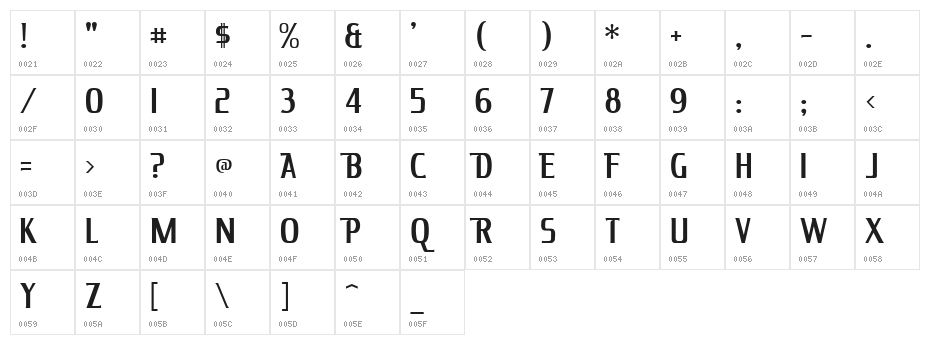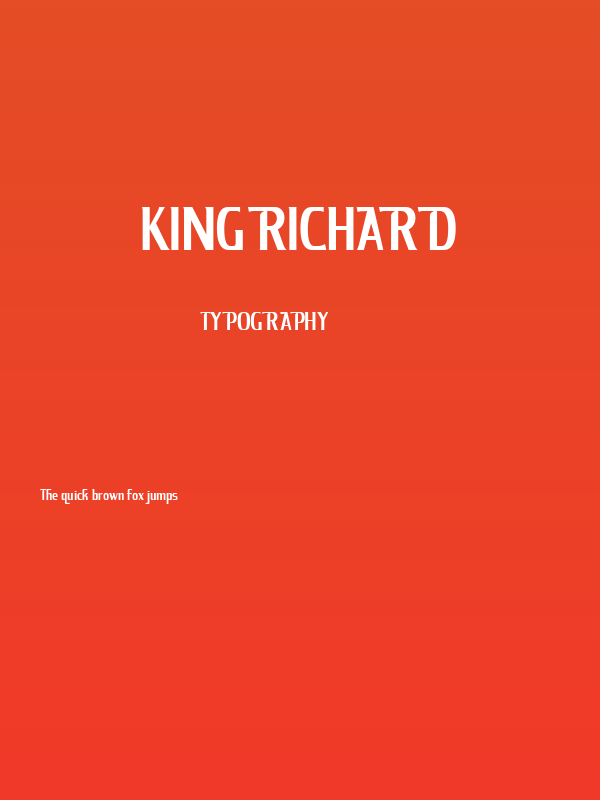
King Richard Font
King Richard Description
This font features a bold and dynamic style with a modern twist. The uppercase letters are tall and slightly condensed, giving a strong and commanding presence. The lowercase letters maintain a consistent height, providing a balanced and cohesive look. The numerals are clear and easy to read, with a slightly rounded appearance that adds a touch of softness to the overall design. Special characters are well-defined, ensuring versatility in various applications. The font's unique character shapes, such as the distinctive 'Q' and 'g', add personality and flair, making it suitable for eye-catching designs.
Proposed ProjectsIdeal for branding, headlines, posters, and any project requiring a strong visual impact.